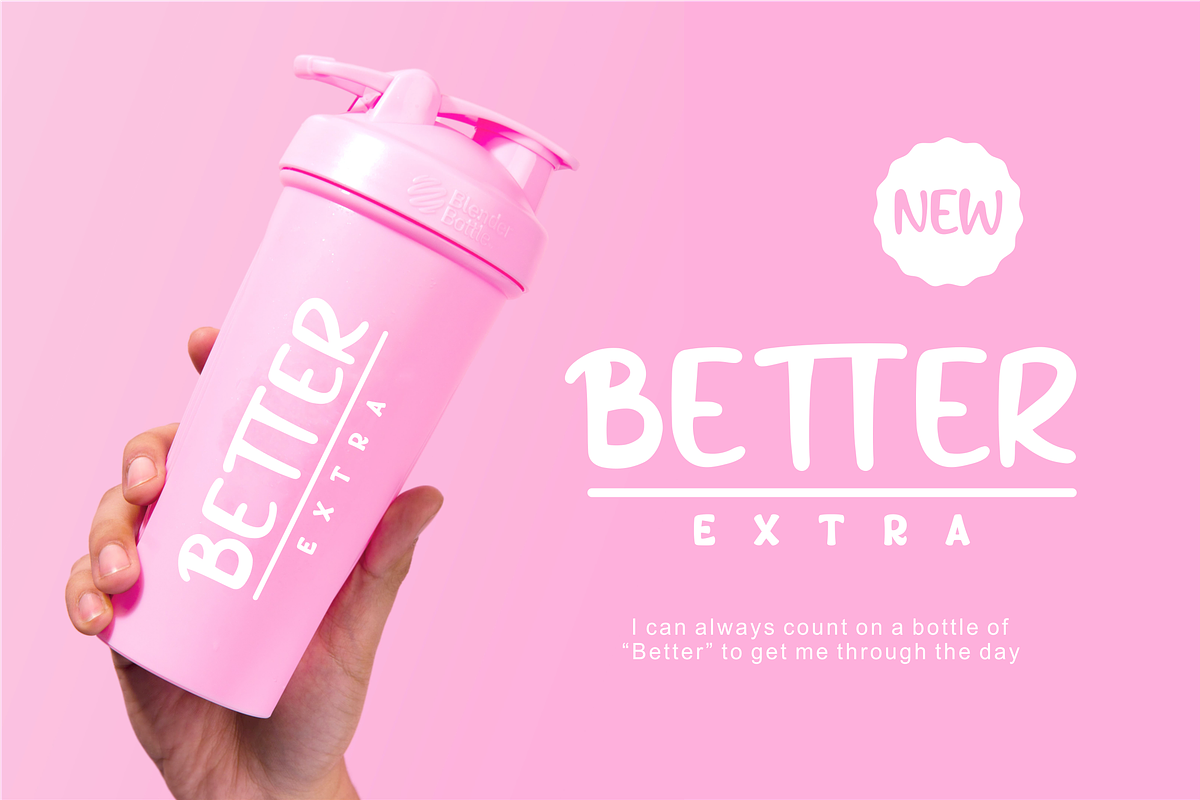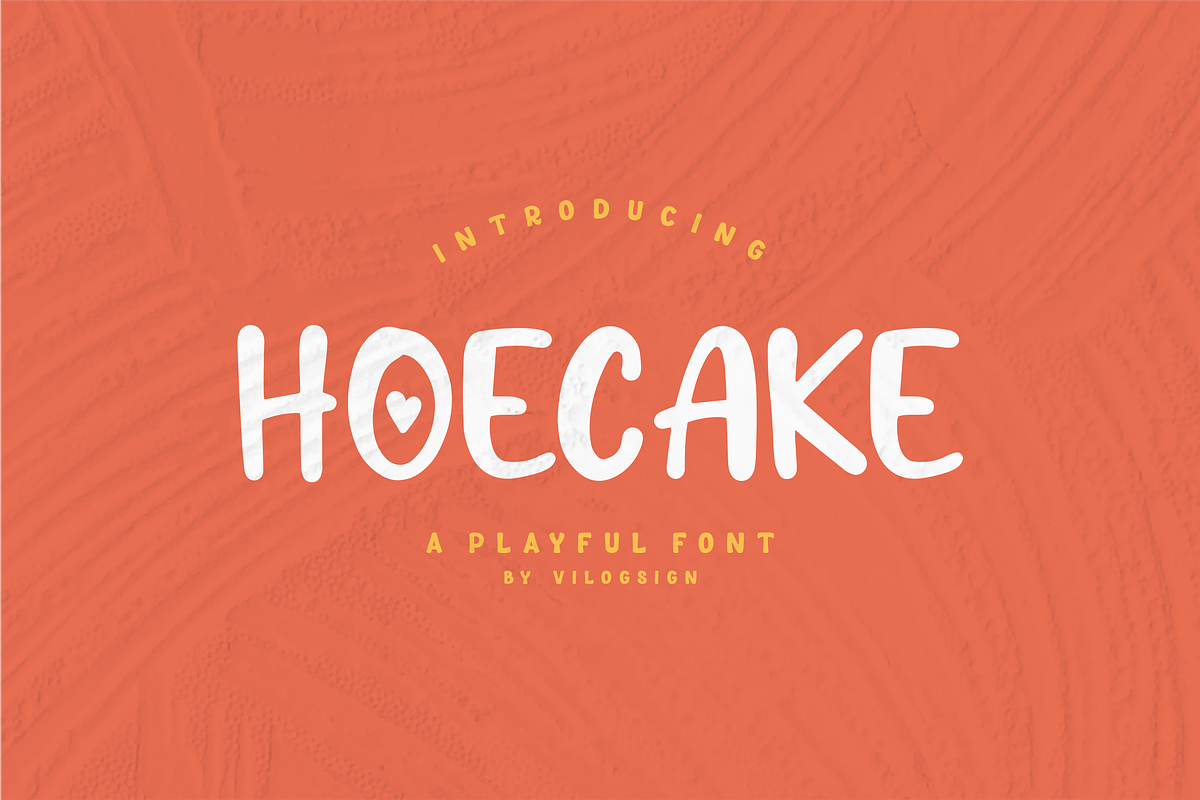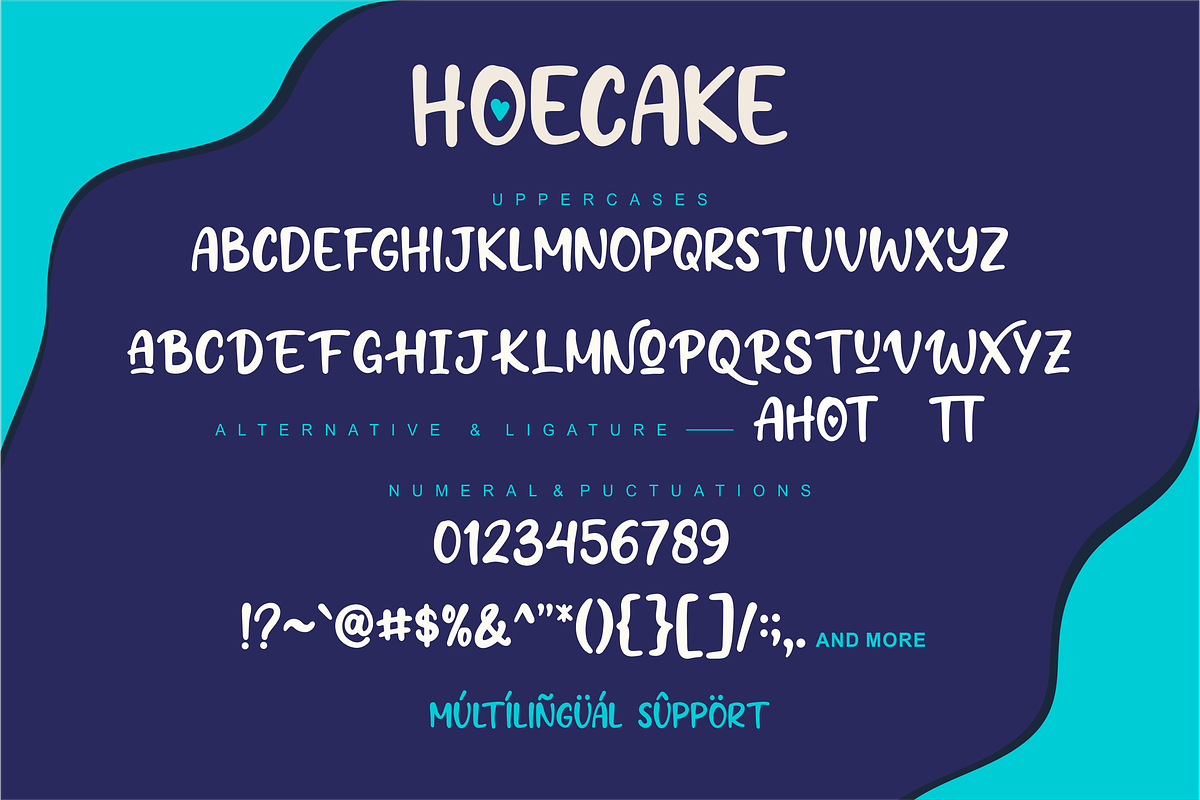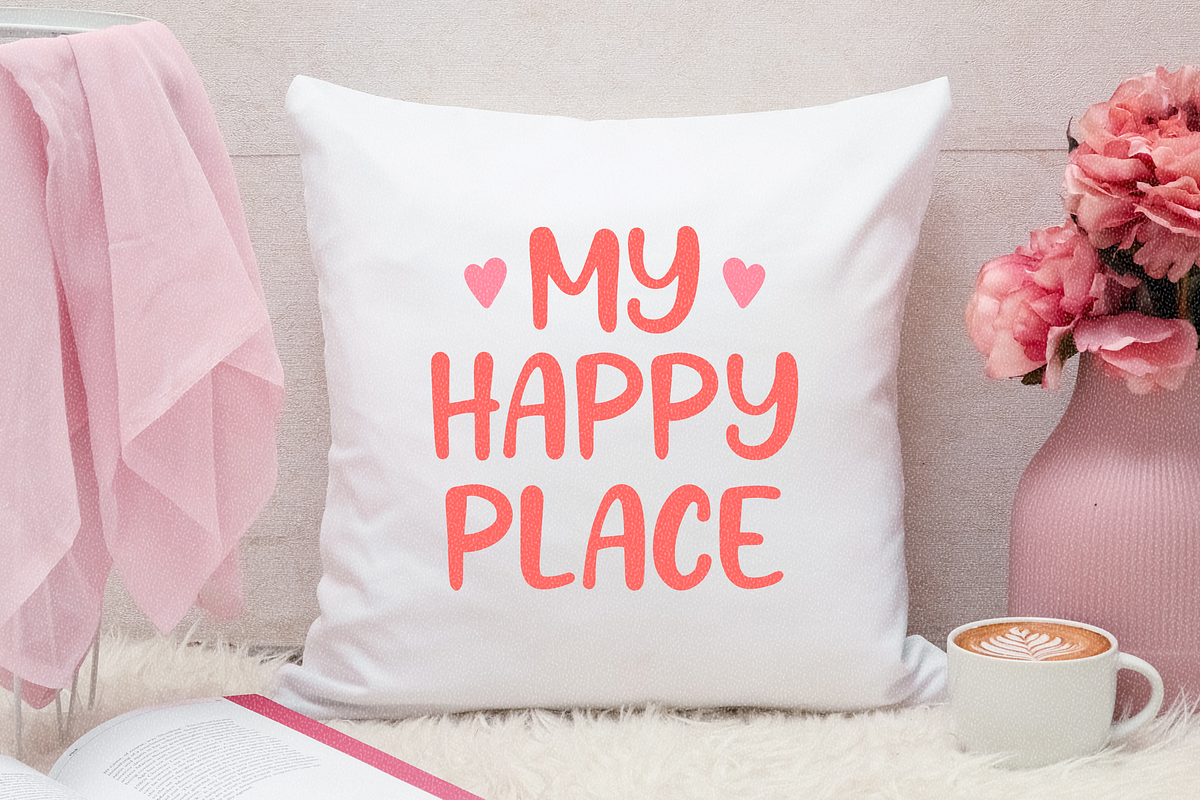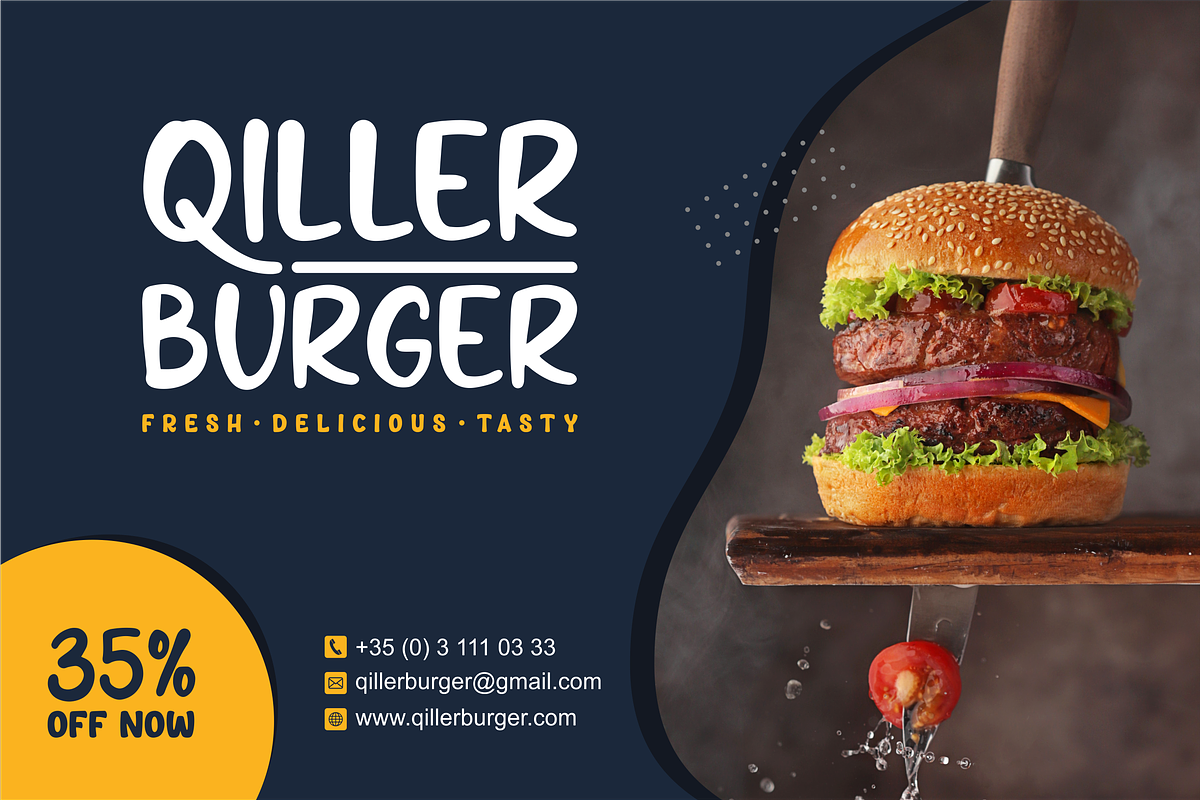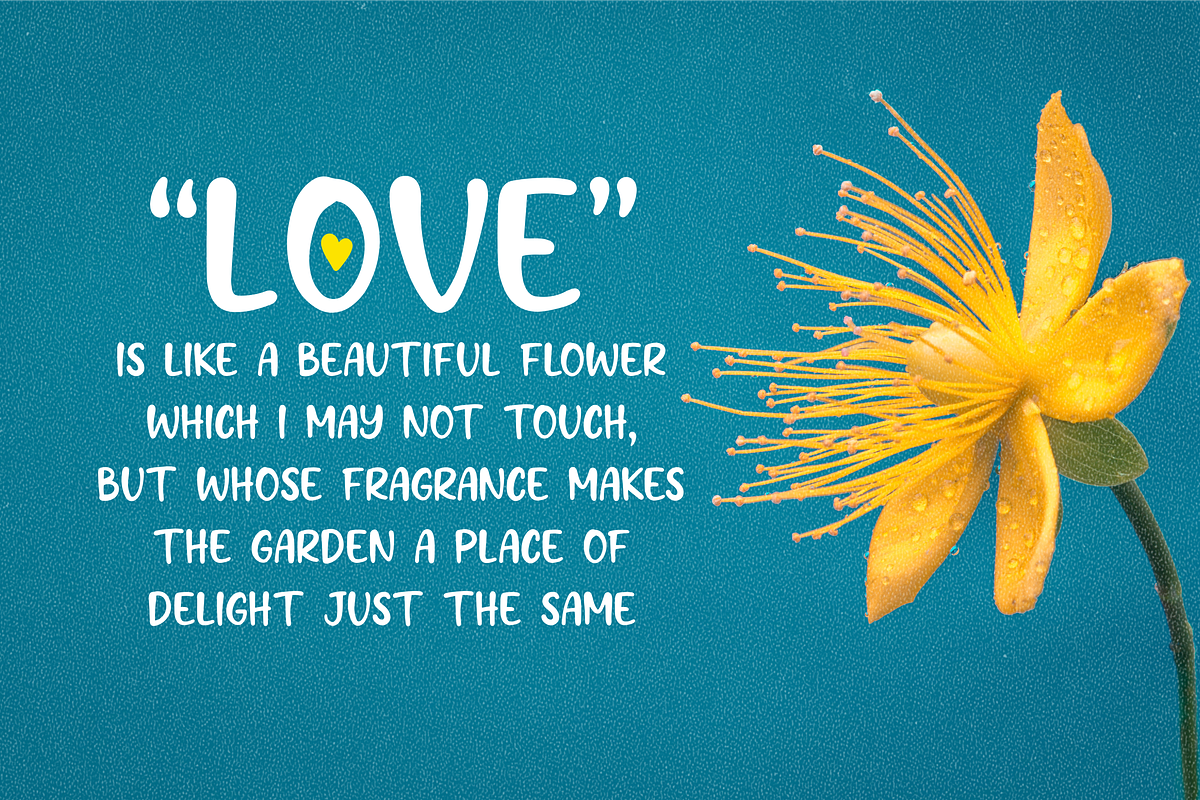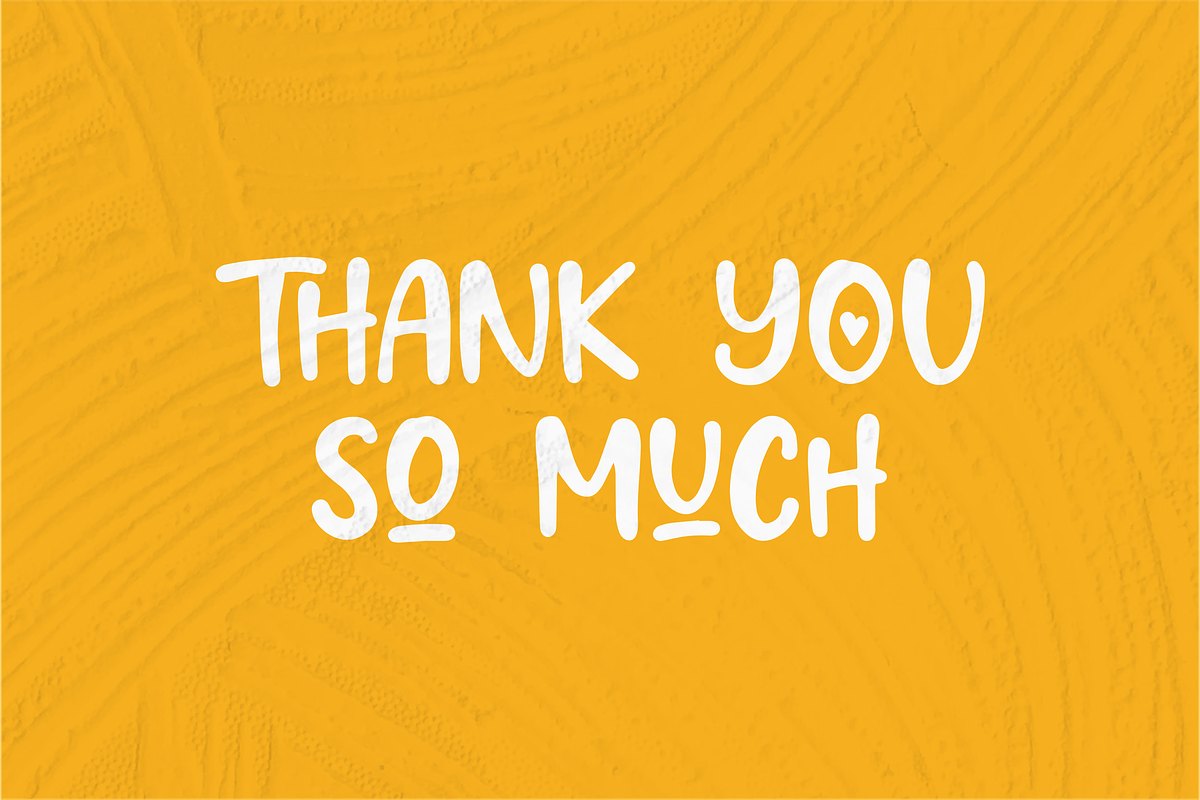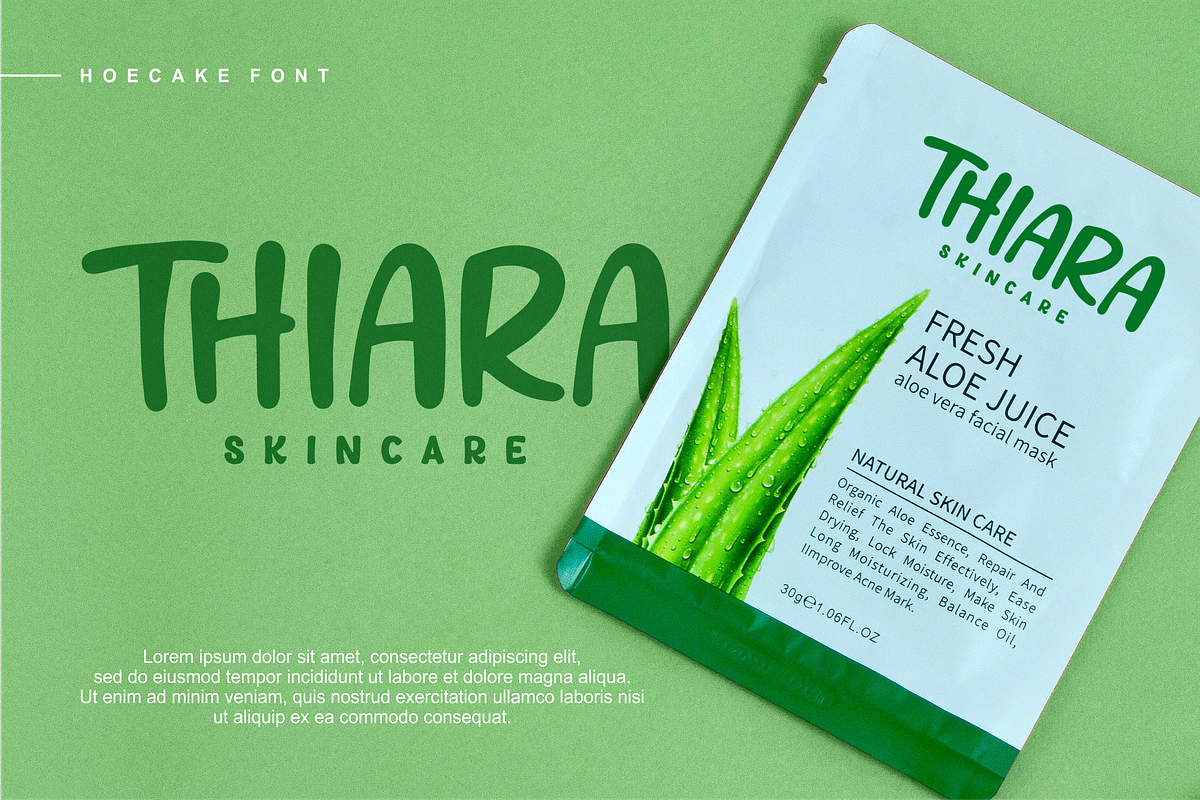
Hoecake a Playful Display Font
Introducing "Hoecake" a Playful Font!!!
Bold, Playful, Cute, and Fun. This type of font perfectly made to be applied especially in Branding, and the other various formal forms such as books, greeting / wedding cards, packaging, fashion, make up, stationery, novels, labels or any type of advertising purpose.
This font is very amazing with Arternative, ligature, and multilingual support to complete your need.